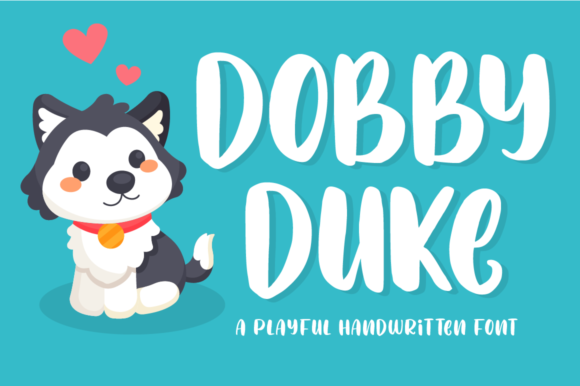
Welcome to the enchanting world of Dobby Duke Font – a captivating display font crafted with meticulous care to add a spark of pure joy to your creative endeavors! Unleash the effervescent personality of this font, designed by the renowned FatmaStudio, and watch your creations bloom with an irresistible charm.
Immerse yourself in a world of happiness and whimsy with Dobby Duke Font. Its playful demeanor is guaranteed to light up your designs, captivating your audience with its infectious energy. Whether you're crafting a heartfelt birthday card, designing a cheerful poster, or creating an eye-catching logo, Dobby Duke Font will effortlessly infuse your projects with a sense of unbridled joy.
Experience the transformative power of Dobby Duke Font as it elevates your designs to new heights. Its playful, almost dancing, letterforms will add a touch of magic to every word, making your message truly unforgettable. Let Dobby Duke Font paint a canvas of happiness across your creative projects, leaving a lasting impression on all who encounter it.
Transport yourself to a world where imagination reigns supreme. With Dobby Duke Font, the possibilities are limitless. Its ability to seamlessly blend with a variety of design styles makes it an incredibly versatile choice, allowing you to create projects that are uniquely yours. Whether you're a seasoned designer or just starting your creative journey, Dobby Duke Font will effortlessly elevate your work, turning your ideas into breathtaking realities.
Discover the key to unlocking the full potential of your creativity with Dobby Duke Font. Its user-friendly nature makes it accessible to designers of all levels, empowering you to create stunning designs with ease. Let Dobby Duke Font be your creative companion, guiding you towards designs that exude joy, captivate hearts, and leave an enduring legacy.